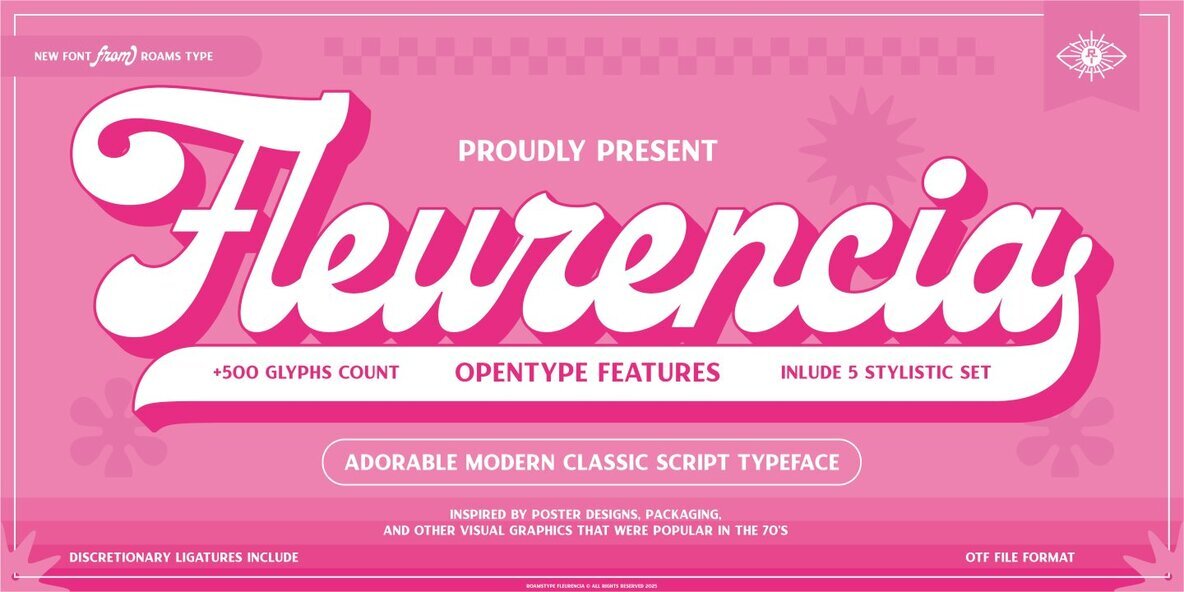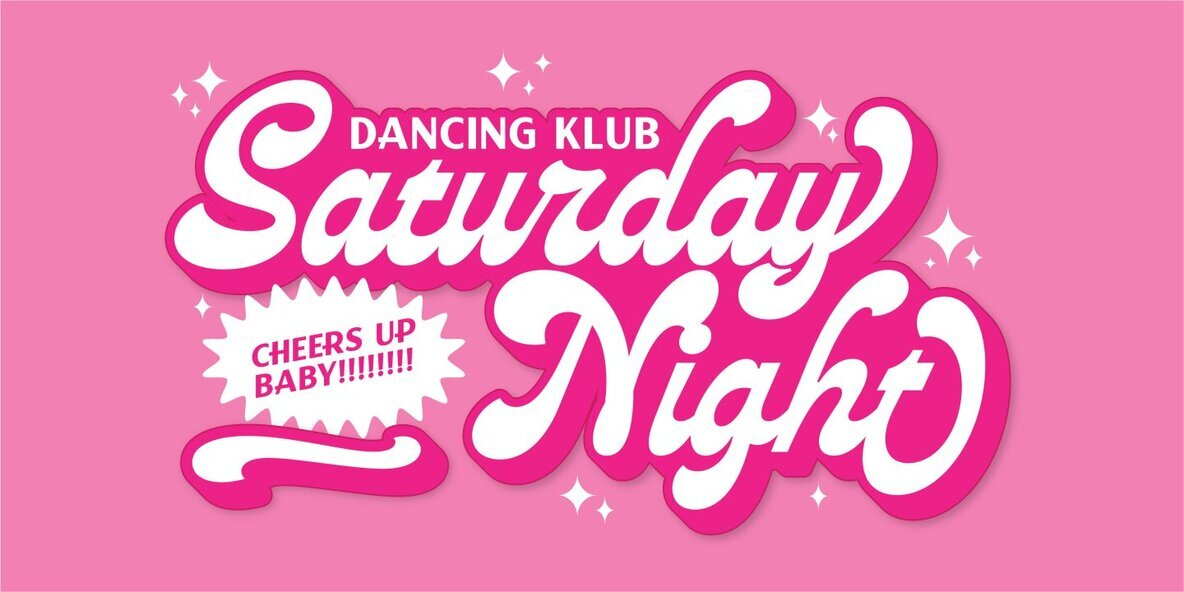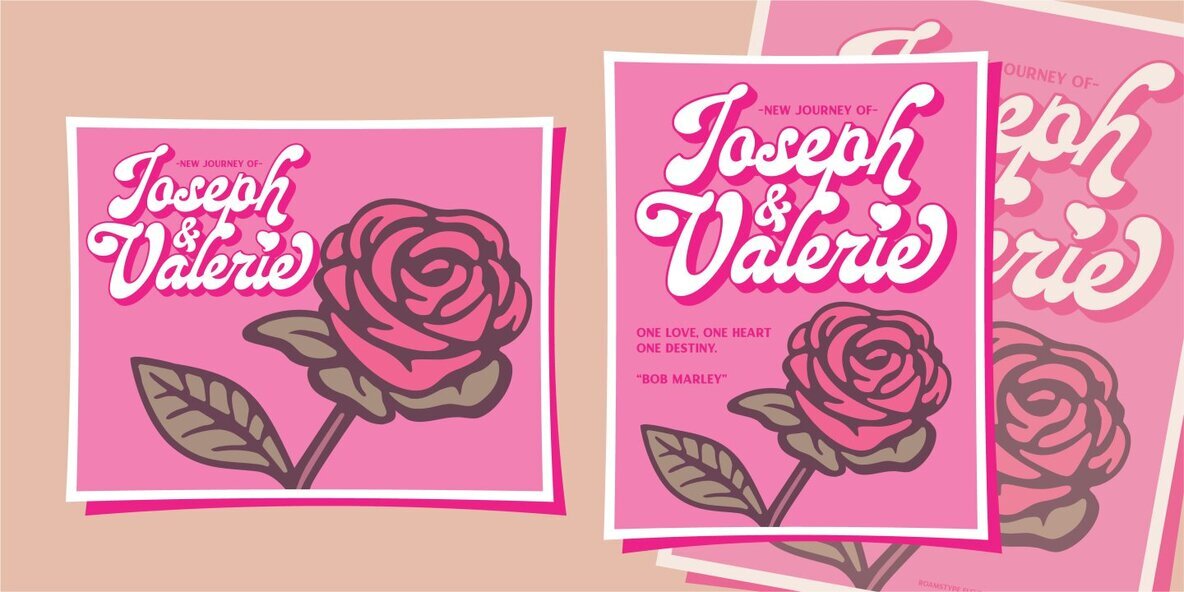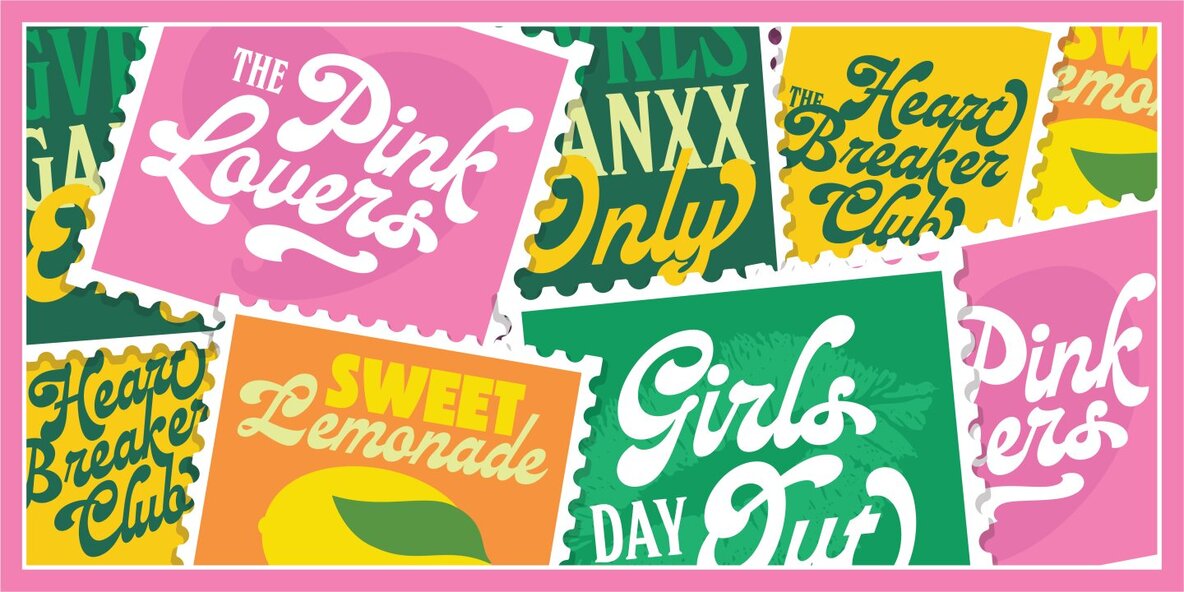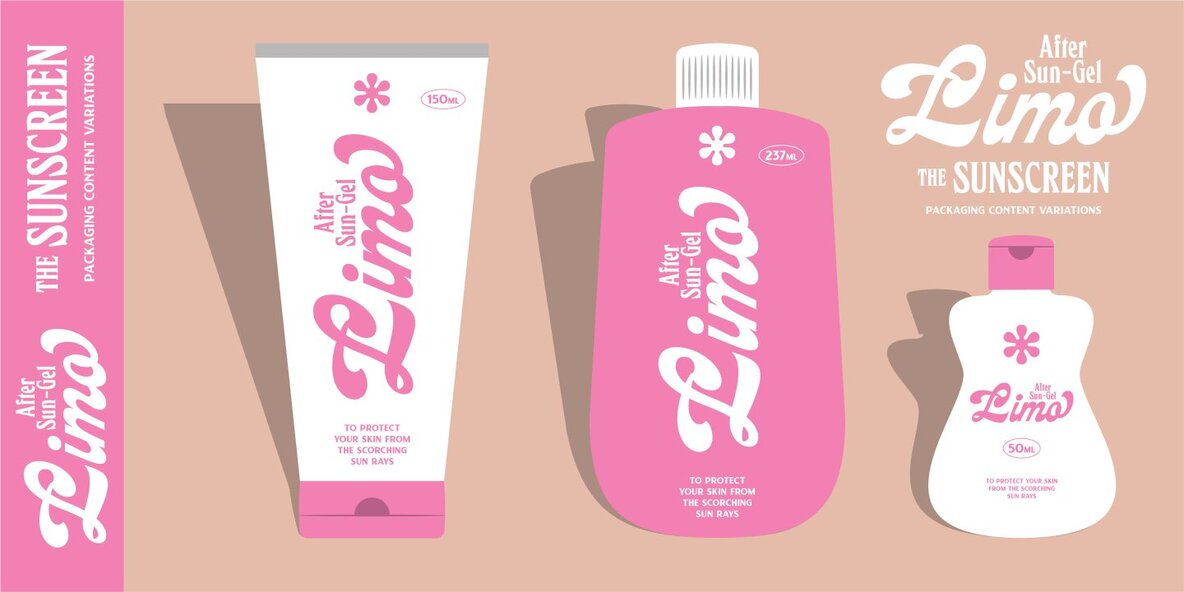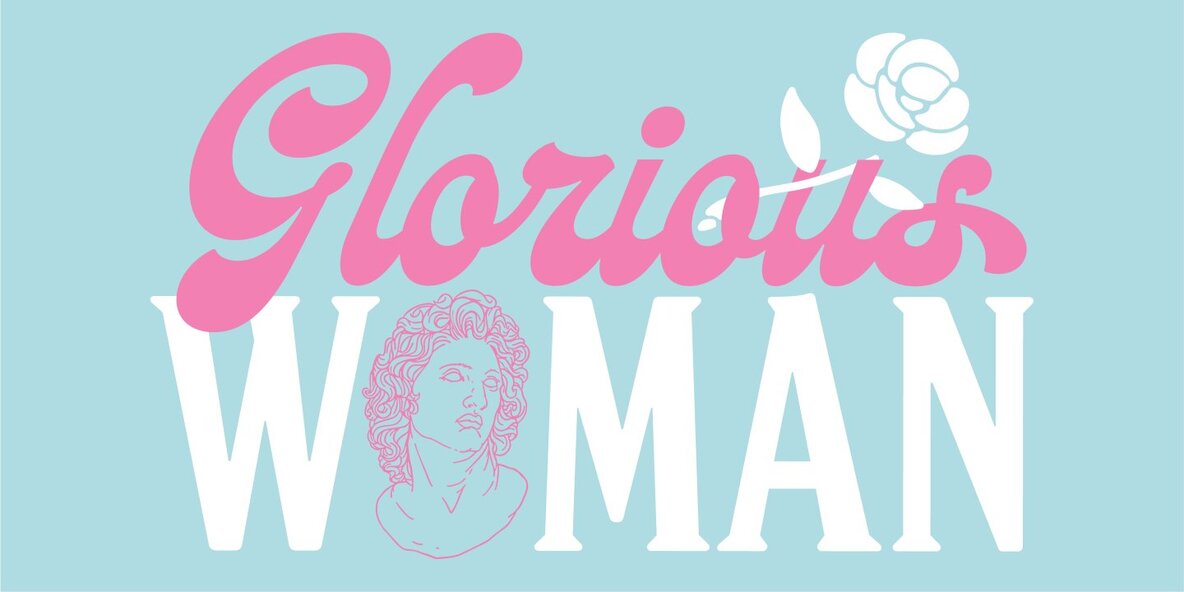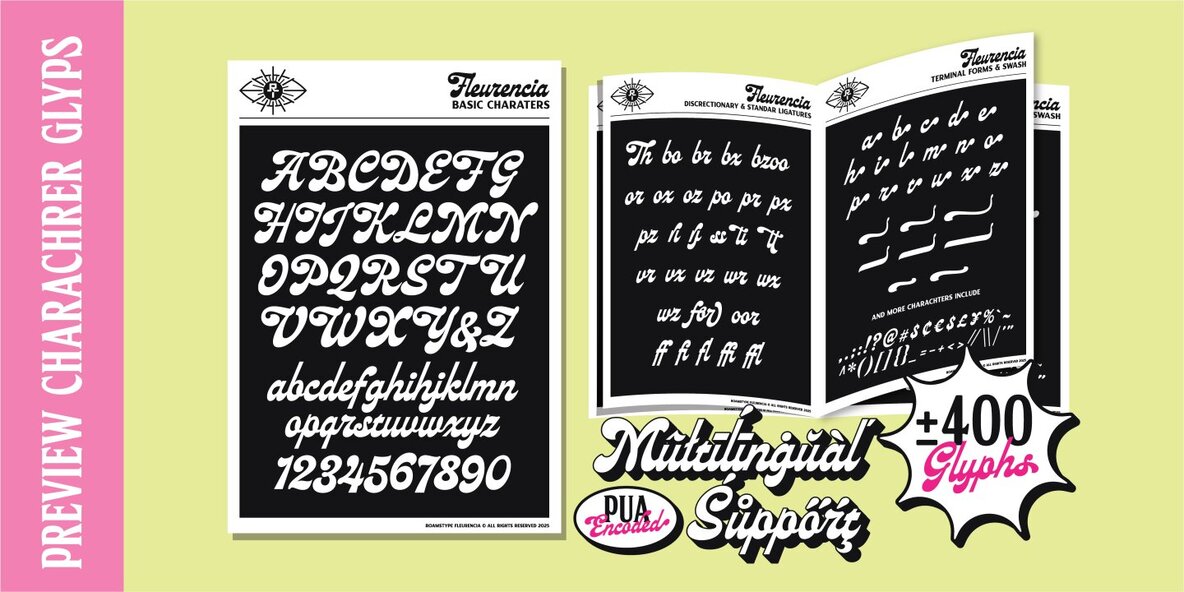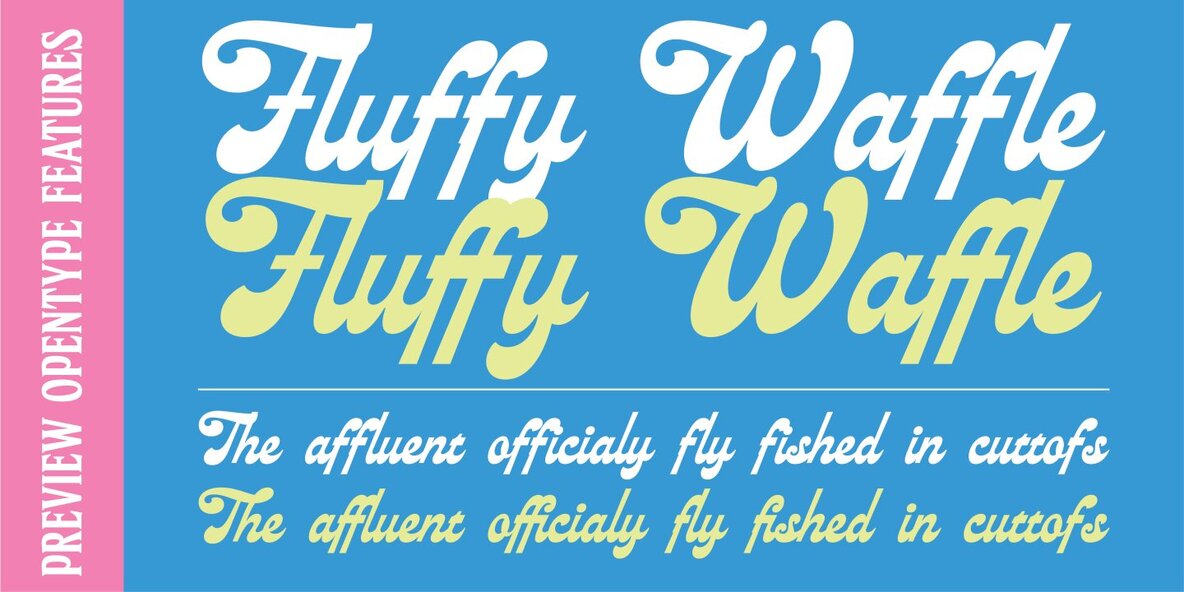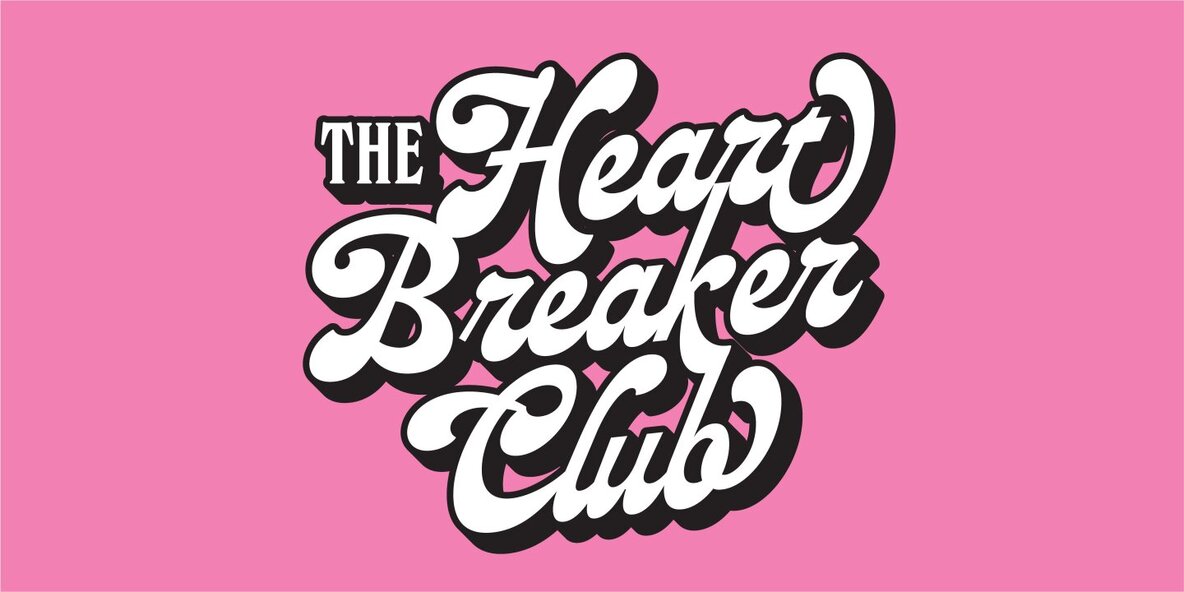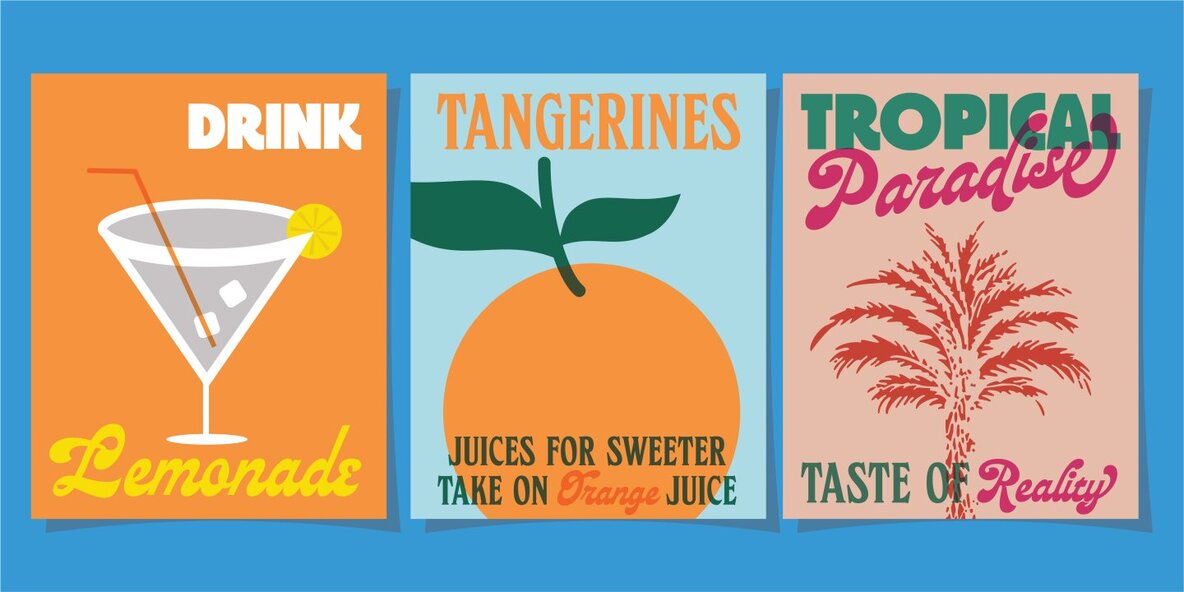
Fleurencia Font
Capturing the nostalgic charm of 1970s typography, Fleurencia by Roams Type infuses your design projects with a playful yet elegant flair. This font draws inspiration from vintage packaging and graphic trends, making it an ideal choice for logotypes, branding, and identity designs. Bring your creative visions to life with Fleurencia, and enjoy experimenting with the bonus fonts for a versatile design toolkit. Happy designing!Fleurencia: 70's Adorable Script Font